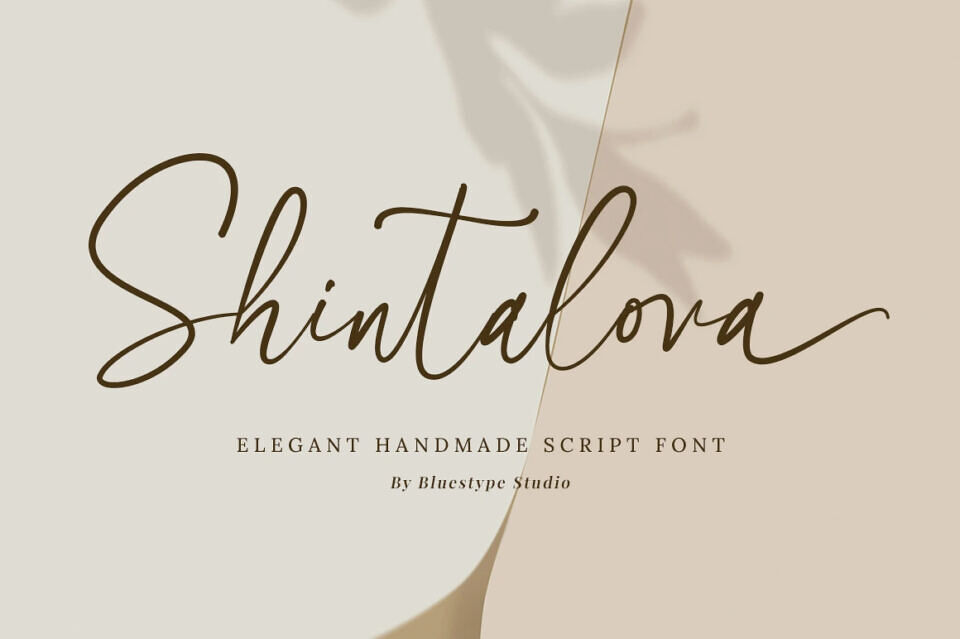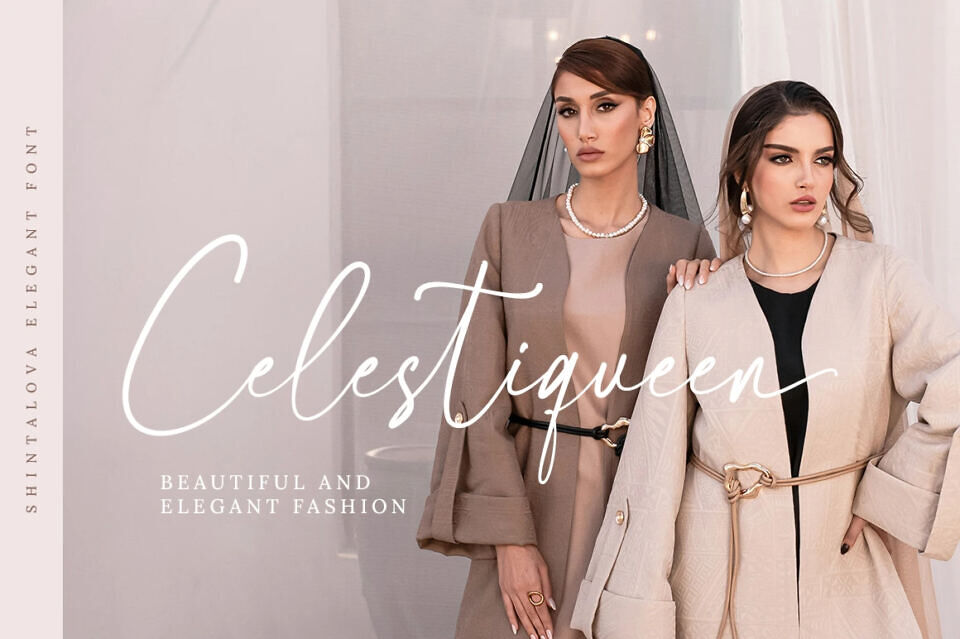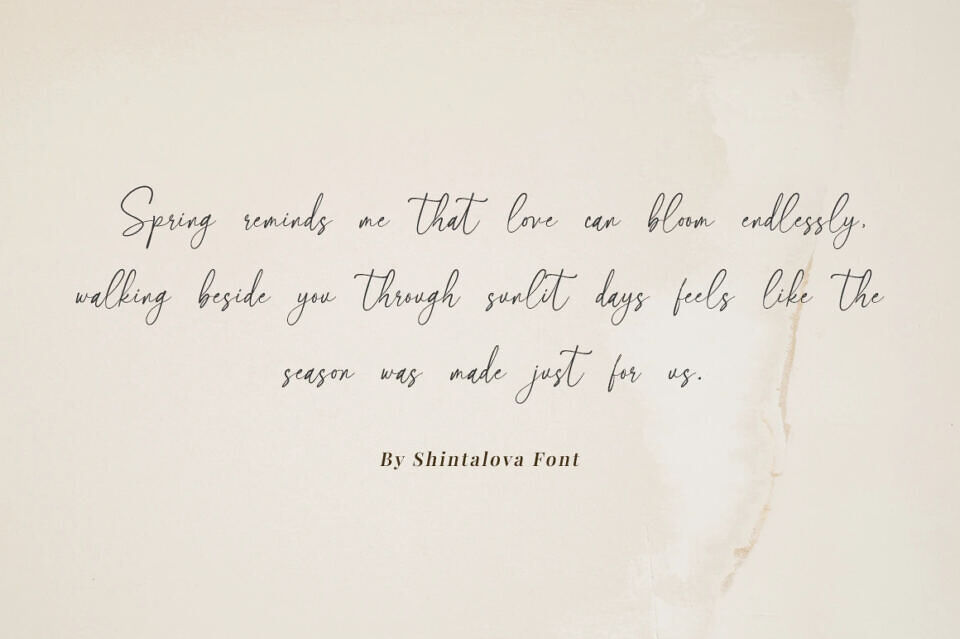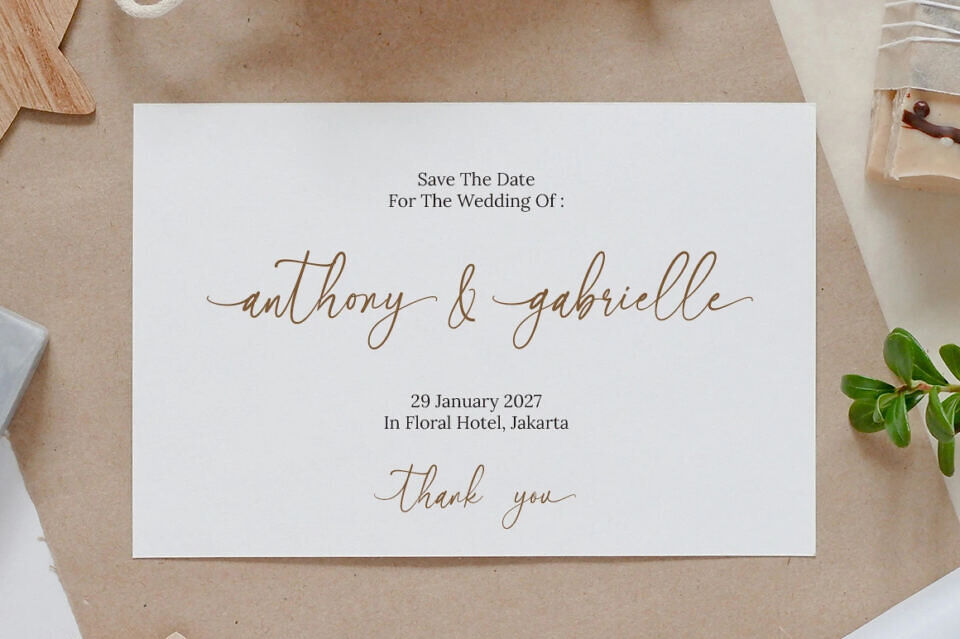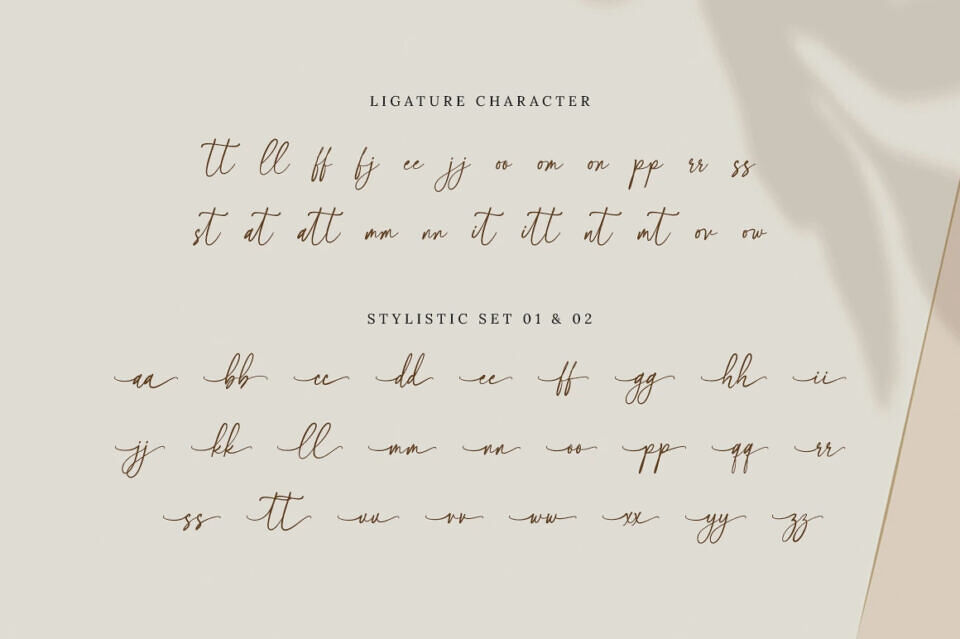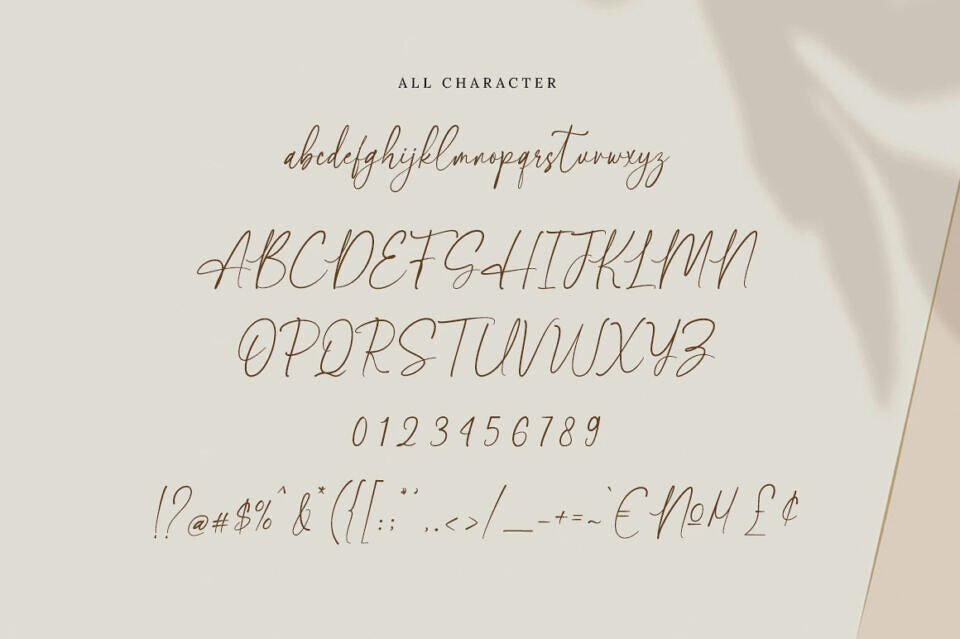
Shintalova exudes elegance with its refined, luxurious feel. Its smooth curves and flowing lines merge modern style with classic script flair, ideal for upscale designs.
Suitable applications include high-end branding, fashion, and beauty projects, as well as luxury packaging, wedding invitations, and sophisticated typography for social media and editorial content.